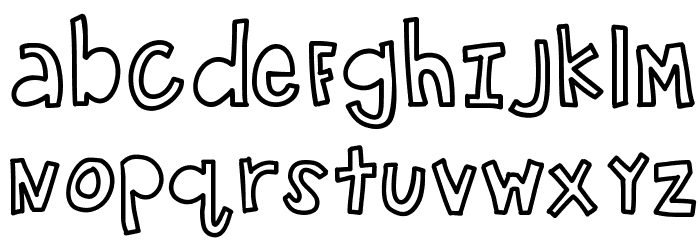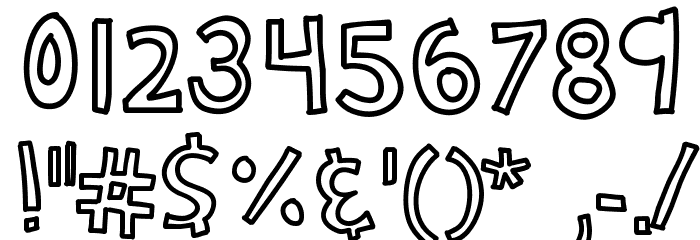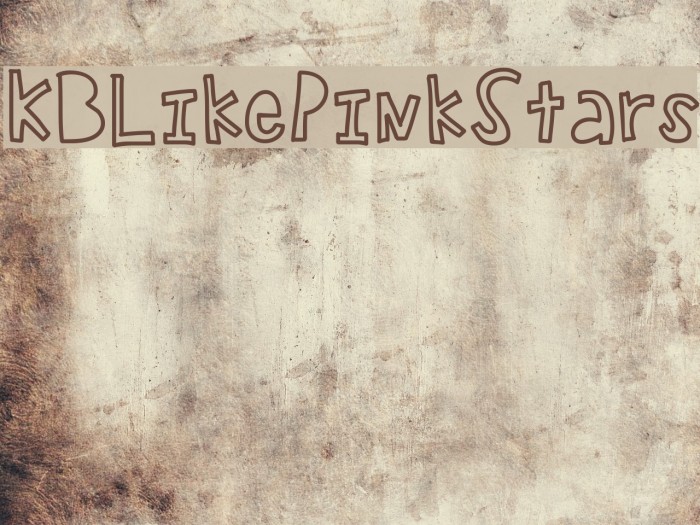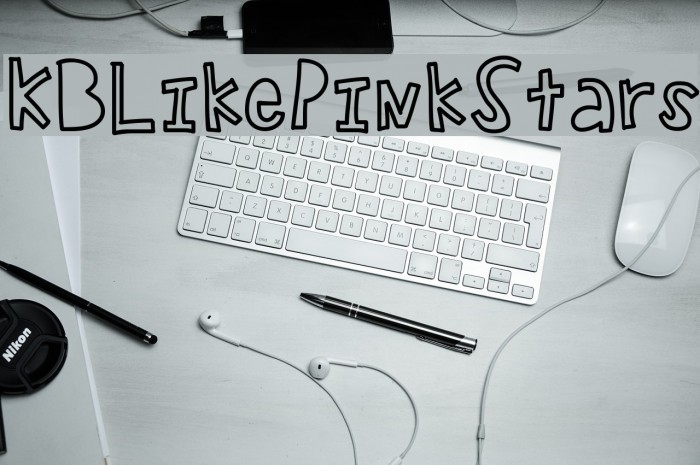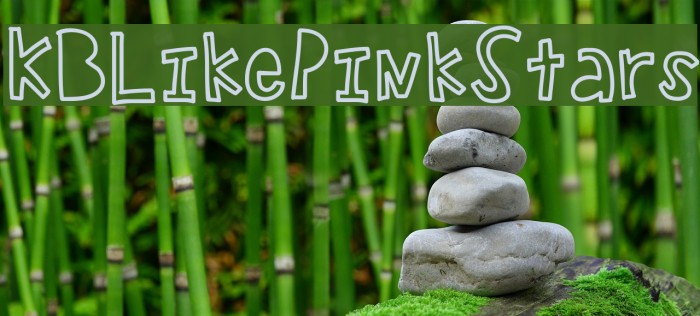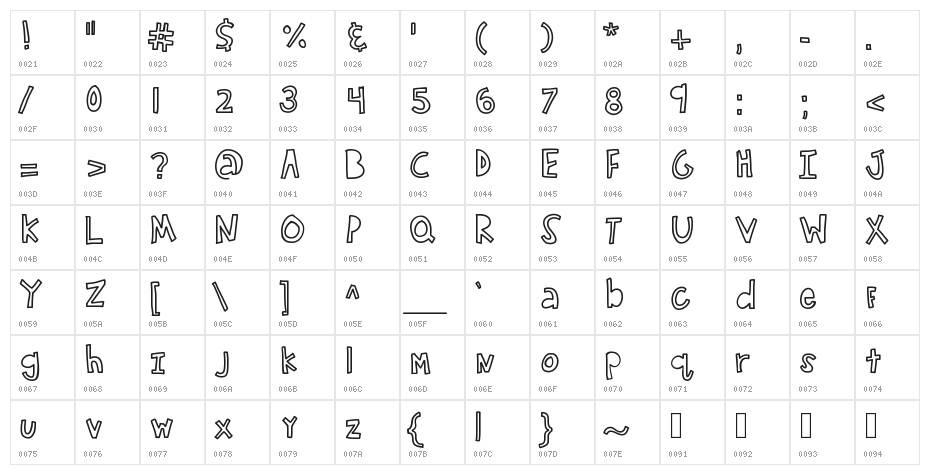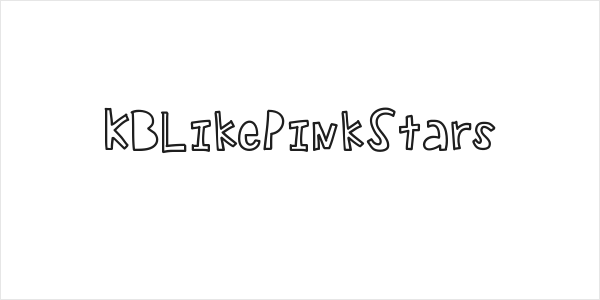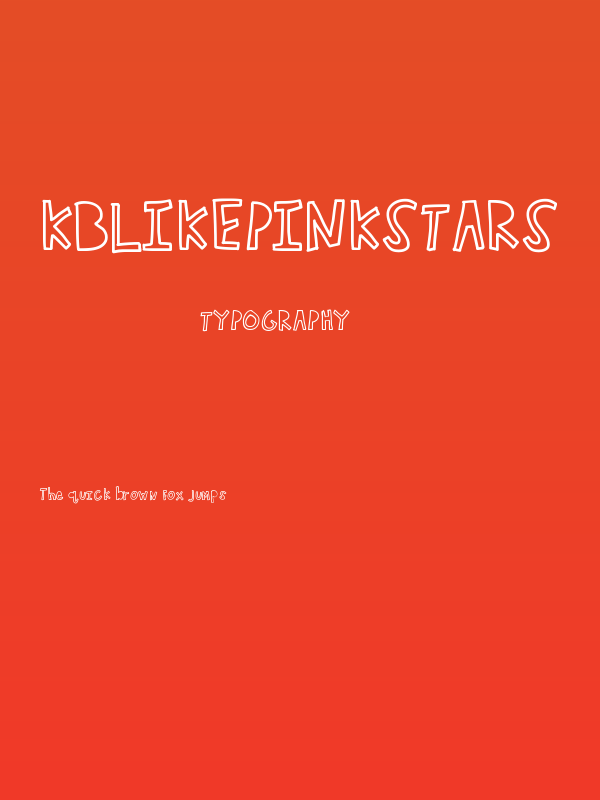
KBLikePinkStars Font
This playful and whimsical font features bold, hand-drawn characters with a cartoonish flair. The letters are outlined with a thick, uniform stroke, giving them a distinctive and eye-catching appearance. The uppercase and lowercase letters maintain a consistent style, with rounded edges and a slightly irregular shape that adds to the font's charm. Numbers and special characters follow the same playful design, making the font versatile for various creative projects. The overall look is informal and fun, perfect for designs that aim to capture a youthful or lighthearted vibe.
A playful, hand-drawn font with bold, cartoonish outlines.
- Proposed Projects: Ideal for children's books, playful posters, greeting cards, and fun branding projects.
- Overall Style: Playful, Whimsical